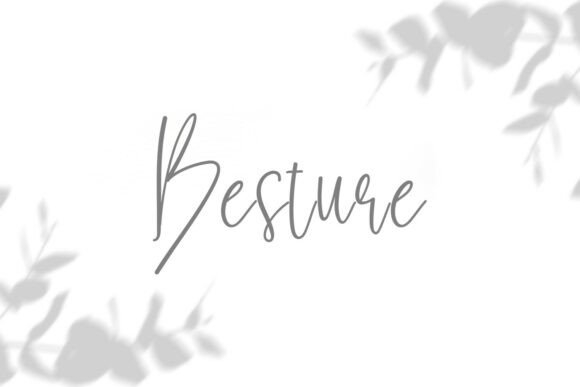
The Besture Font: A Handwriting Marvel for Modern Design
I’ll never forget the time I was working on a wedding invitation project, and my client asked for a font that was both elegant and personal. I scoured the internet, tried countless fonts, but nothing seemed quite right. That was until I stumbled upon Besture Regular, a captivating handwriting font that effortlessly blends modern simplicity with a touch of artistic flair. In this article, I’ll share my experience with Besture Font, its features, and how to make the most of it in your designs.
A Closer Look at Besture Regular
Besture Regular is crafted with meticulous attention to detail, reflecting the natural flow and spontaneity of authentic handwriting. Its smooth and well-balanced strokes create a seamless rhythm, making it not only visually appealing but also exceptionally legible.
Key Features:
- Elegance in Simplicity: Besture Regular embodies an understated elegance, making it suitable for a myriad of design applications, from invitations to branding projects.
- Authentic Handwritten Feel: With its organic strokes and fluid connections between letters, Besture Regular brings the charm of genuine handwriting to digital and print materials.
- Versatile Usage: Whether used for personal projects, business communications, or creative endeavors, Besture Regular adds a personalized touch, enhancing the overall aesthetic.
- Ligatures for Fluidity: Besture Regular includes thoughtful ligatures, allowing for a more natural and fluid reading experience.
- ✨ Elegant yet approachable: Besture Regular strikes the perfect balance between sophistication and friendliness.
- ✅ Exceptional legibility: The font’s smooth strokes and balanced design make it easy to read, even at smaller sizes.
- 💫 Versatile: Besture Regular can be used for a wide range of projects, from formal events to creative branding.
- 🤔 Limited character set: While Besture Regular has a comprehensive character set, it may not include every special character or glyph you need.
- ⚠️ Kerning issues: As with any font, you may need to adjust kerning for optimal results, especially in larger text blocks.
The Story Behind Besture Font
Besture Font was designed by a team of typographers who aimed to create a font that captures the essence of authentic handwriting. Inspired by the natural flow of handwritten text, they crafted a font that is both elegant and approachable. With its smooth strokes and balanced design, Besture Font has become a popular choice among designers and crafters.
| Author | sopheynoft |
| What is Besture Font? | Besture Font is a handwriting font that blends modern simplicity with artistic flair, making it suitable for various design applications. |
| Does Besture Font include ligatures and stylistic alternates? | Yes, Besture Font includes thoughtful ligatures and stylistic alternates, allowing for a more natural and fluid reading experience. |